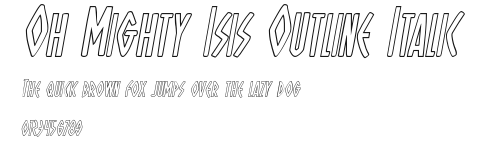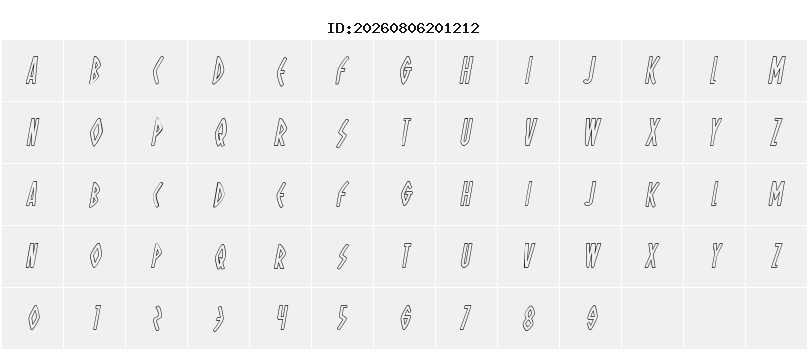
Oh Mighty Isis Outline Italic Preview
• Font Name: Oh Mighty Isis Outline Italic
• Font ID: Oh Mighty Isis Outline Italic: 2013
• Full Font Name: Oh Mighty Isis Outline Italic
• PostScript Name: OhMightyIsisOutlineItalic
About Oh Mighty Isis Outline Italic.ttf
Oh Mighty Isis Outline Italic.ttf is a modern, elegant sans-serif font designed for ultimate readability and visual harmony. Perfect for branding, headlines, web design, and print materials.